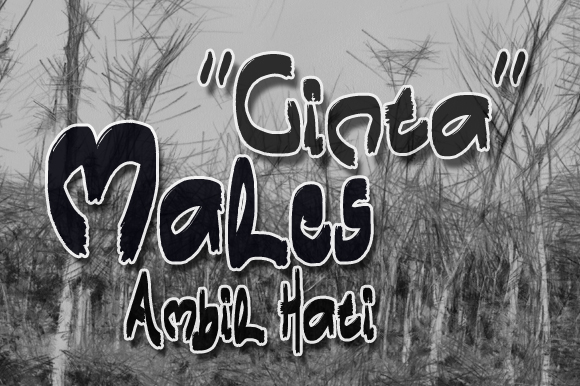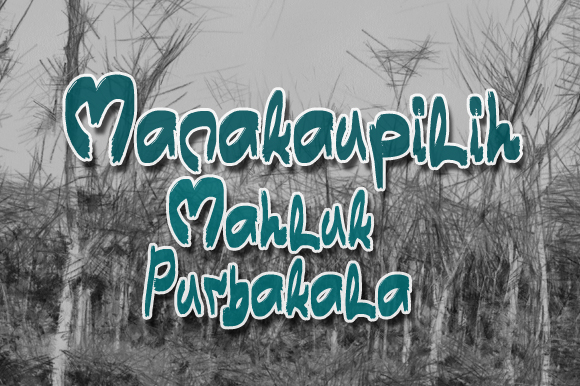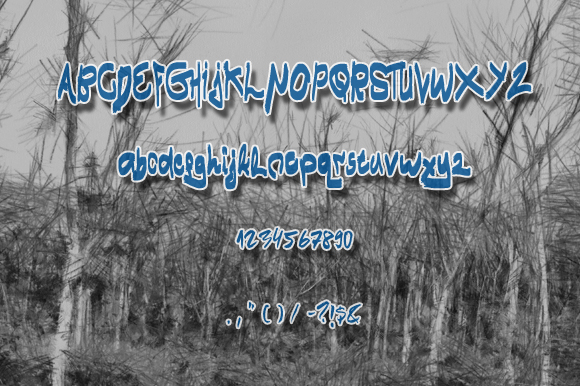
Introduction to Maunikung Font
Have you ever found yourself in a creative rut, staring at a blank canvas or screen, desperately searching for the perfect font to bring your project to life? It’s a frustrating feeling, but one that we’ve all been there. The right font can make all the difference, elevating your design from bland to grand.
That’s where the Maunikung Font comes in – a stylish, modern typeface that’s perfect for those who like to be creative. This high-quality font is a valuable resource for designers, offering a wide range of possibilities for your next big project.
Whether you’re working on a design project, creating a logo, or simply looking for a unique font to add some flair to your social media graphics, the Maunikung Font is a great choice. And the best part? It’s available for free download, making it an accessible design resource for creatives of all levels.
Key Features of Maunikung Font
- Unique, hand-drawn design with a high level of detail, making it a great design resource for creative projects.
- High-quality font with crisp, clear lines and subtle texture, ideal for use in print or digital applications.
- Perfect for designers looking for a distinctive, creative font to add a personal touch to their projects.
Honest Review: Maunikung Font
I recently stumbled upon the Maunikung Font, and I must say it’s a great addition to any design resource library. The font’s unique design and high quality make it perfect for creative projects that require a bit of flair.
Here are some aspects that work well: ✨
- Unique design that sets it apart from other fonts
- High-quality vector format for crisp and clear typography
- May not be suitable for projects that require a traditional or conservative font
- Limited font weights and styles, which may limit its versatility
Overall, the Maunikung Font is a great design resource for anyone looking to add a bit of creativity to their project. Its unique design and high quality make it a great choice for designers who want to stand out. With a free download and transparent background, it’s hard to go wrong.
The Maunikung Font is a high-quality design resource ideal for creative projects requiring a unique and stylish touch. This versatile font is available for free download, making it an excellent addition to any designer’s toolkit.
For optimal results, use the Maunikung Font on a transparent background to showcase its unique texture and design. Experiment with different font sizes and styles to achieve the desired effect.
The Maunikung Font is perfect for:
- Designing invitations and event materials
- Creating social media graphics and promotional materials
- Developing brand identities and logos